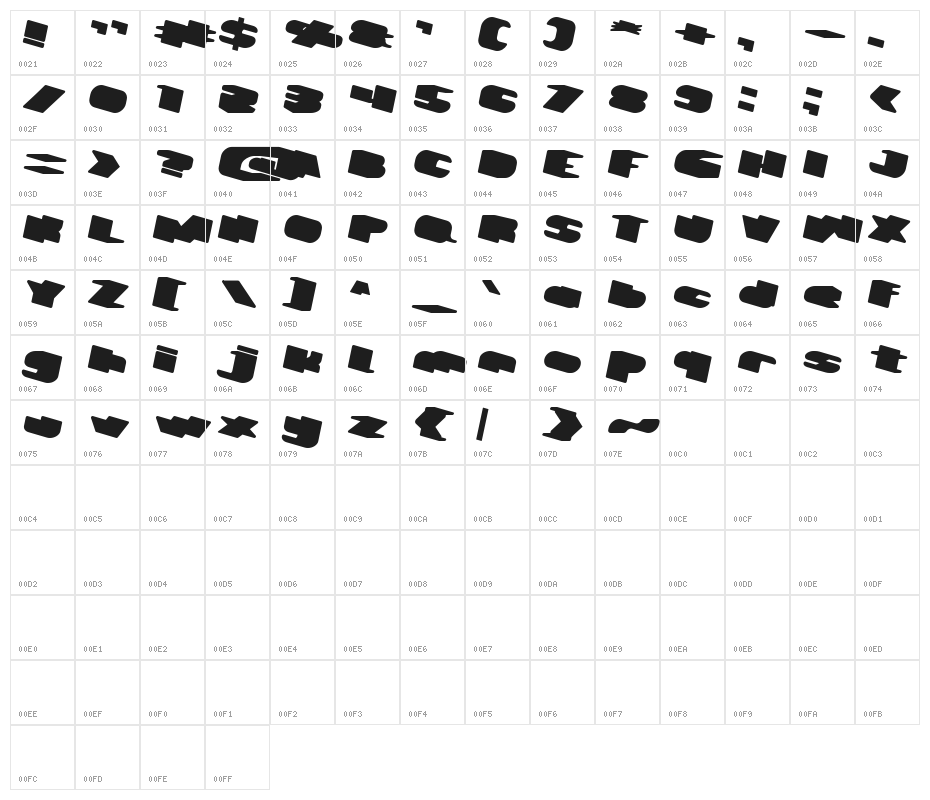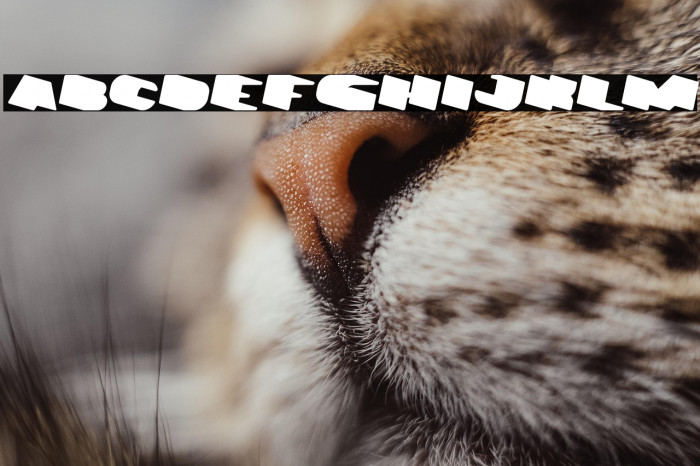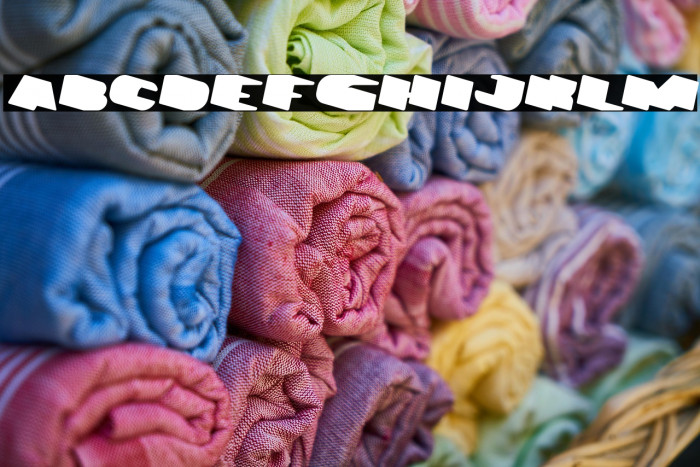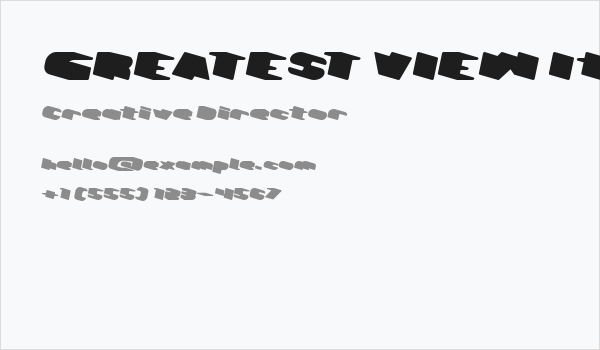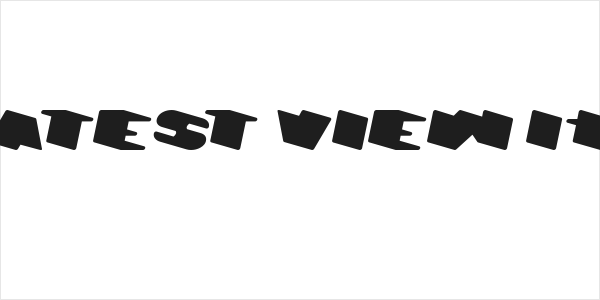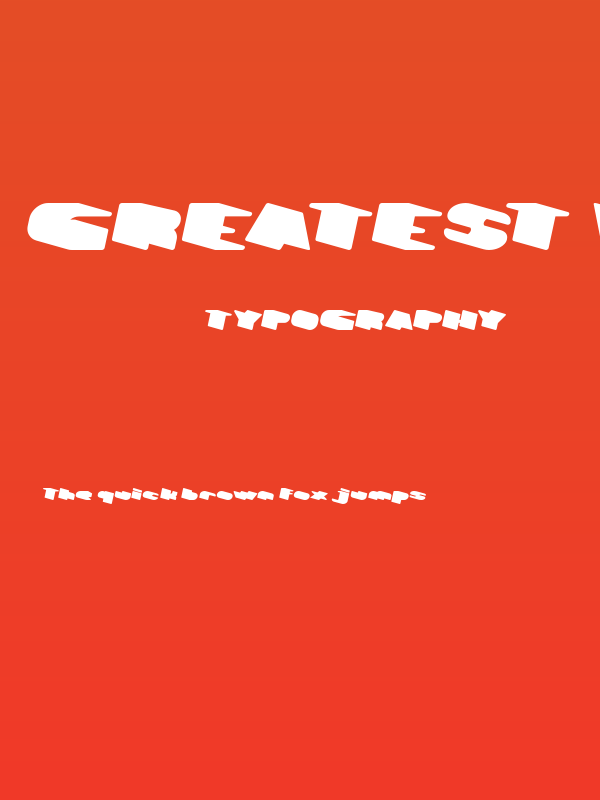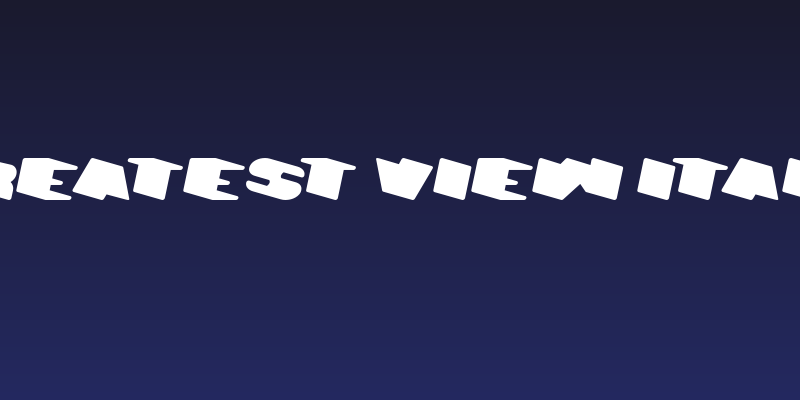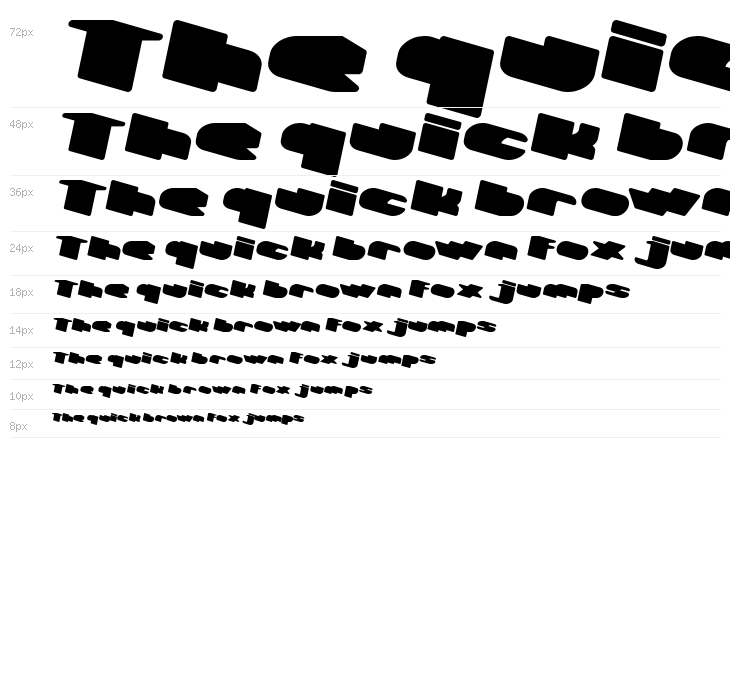
GREATEST VIEW Italic Font
GREATEST VIEW Italic Description
This font features a bold and dynamic design with a strong italic slant, giving it a sense of movement and energy. The characters are thick and chunky, with a playful, almost cartoonish style. The strokes are uneven, adding to the quirky and informal feel. The uppercase and lowercase letters maintain a consistent style, while the numbers and special characters are equally bold and expressive. This font is ideal for projects that require a fun and eye-catching display, such as posters, headlines, or branding materials that aim to stand out.
| Proposed Projects | Ideal for posters, headlines, branding, and any project needing a fun, eye-catching display. |